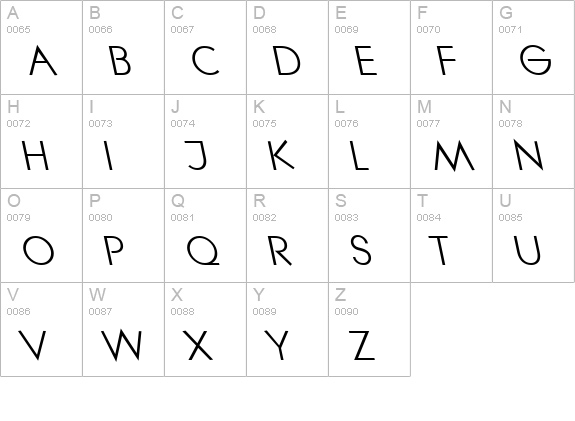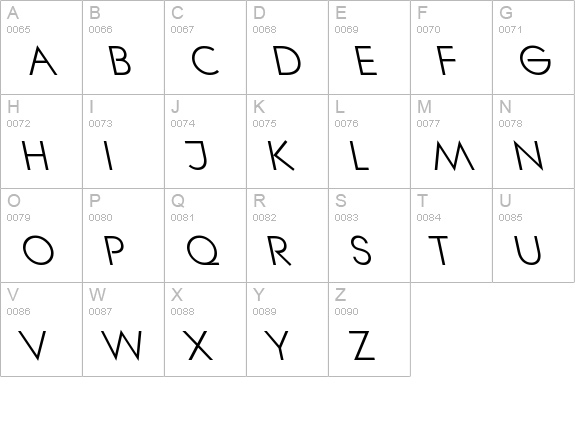
LitheLefty Regular is the standard, neutral variant in the LitheLefty typeface family \xE2\x80\x94 well suited to general body text, paragraphs, and standard typographic work.
LitheLefty Regular is a sleek and elegant font that exudes a sense of sophistication and modernity. Its clean lines and subtle curves make it a versatile choice for a wide range of design projects. Whether you're creating a sleek logo, elegant wedding invitations, or a professional website, LitheLefty Regular is sure to make a statement. What's even better is that LitheLefty Regular is available for free download at FontsMarket.com. This means you can easily access this stylish font and incorporate it into your designs without any cost. Don't miss out on the opportunity to enhance your projects with the timeless appeal of LitheLefty Regular. Download it today and start creating stunning designs that stand out from the crowd.